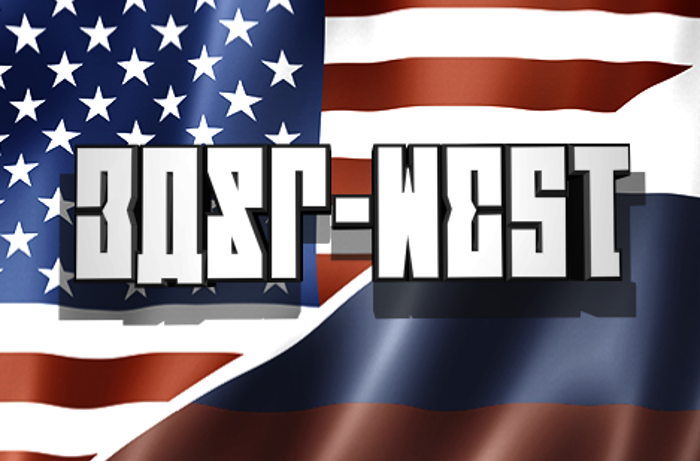
EAST-west Font
Upper case letters are Cyrillic inspired while the lower case letters are Latin inspired. For information on commercial use, please visit www.iconian.com/commercial.html